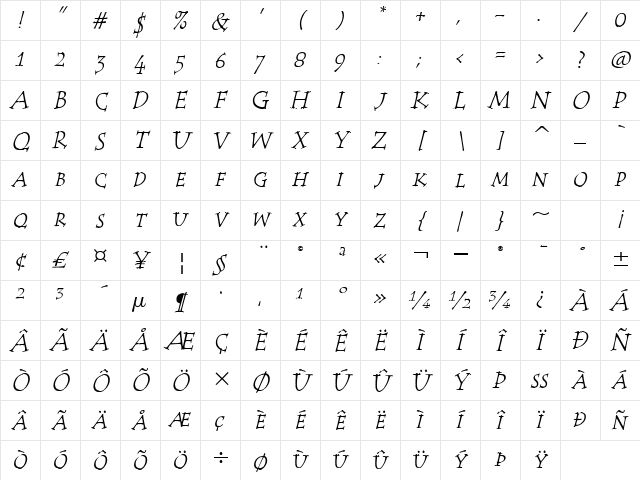
Tempus SC ITC TT Italic
Design Context for Tempus SC ITC TT
Tempus SC ITC TT is a composed and adaptable typeface that performs quietly and consistently across a wide range of design contexts. The slanted form adds forward momentum and visual energy.